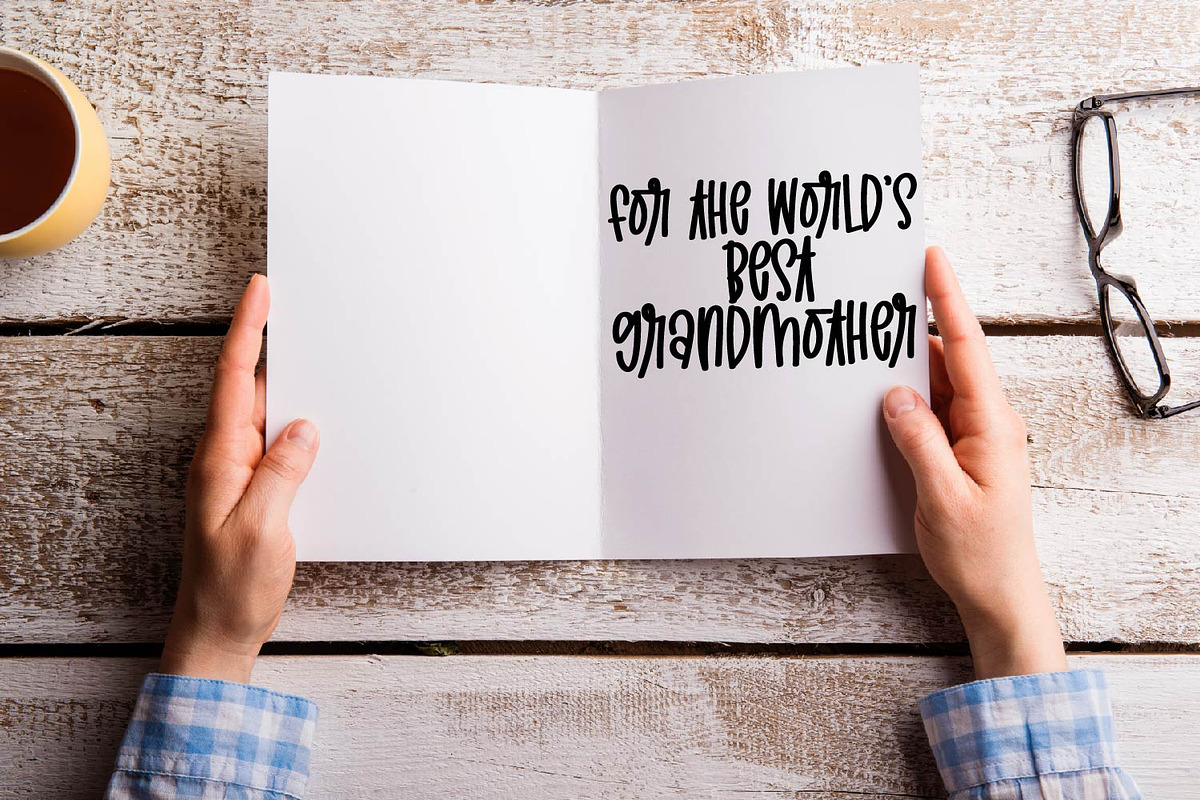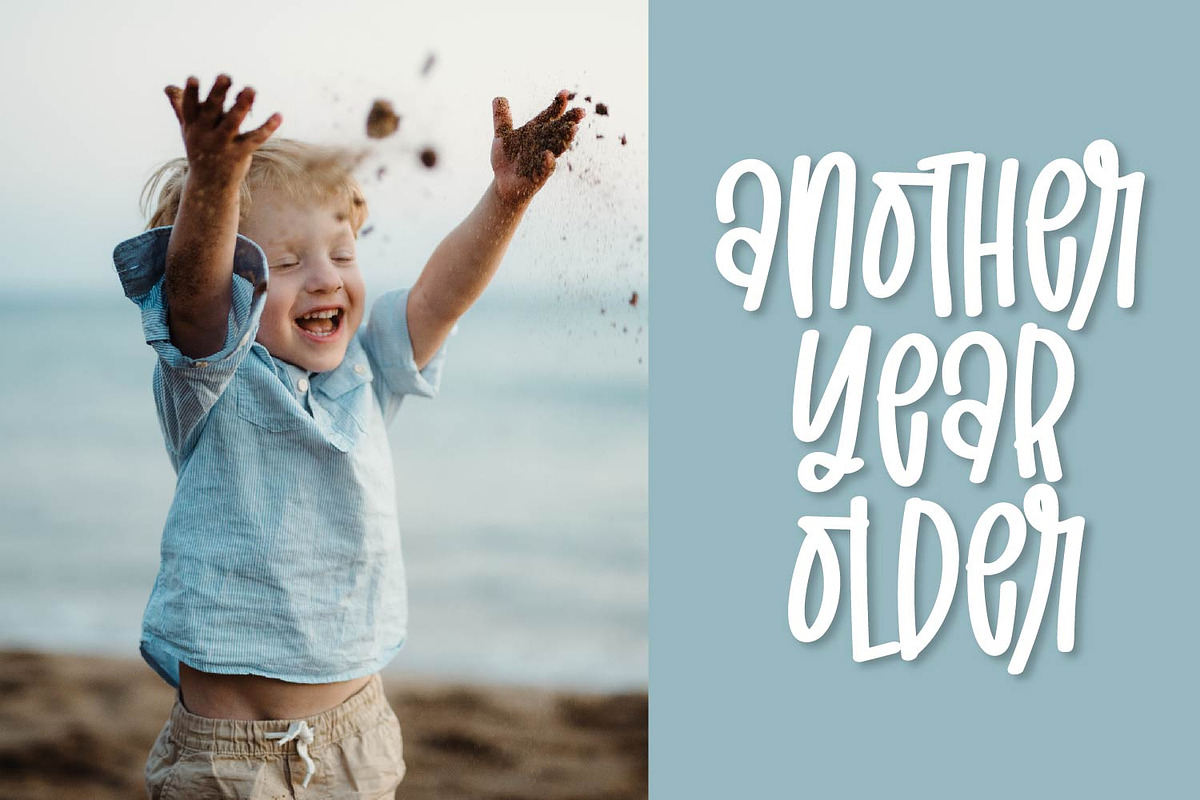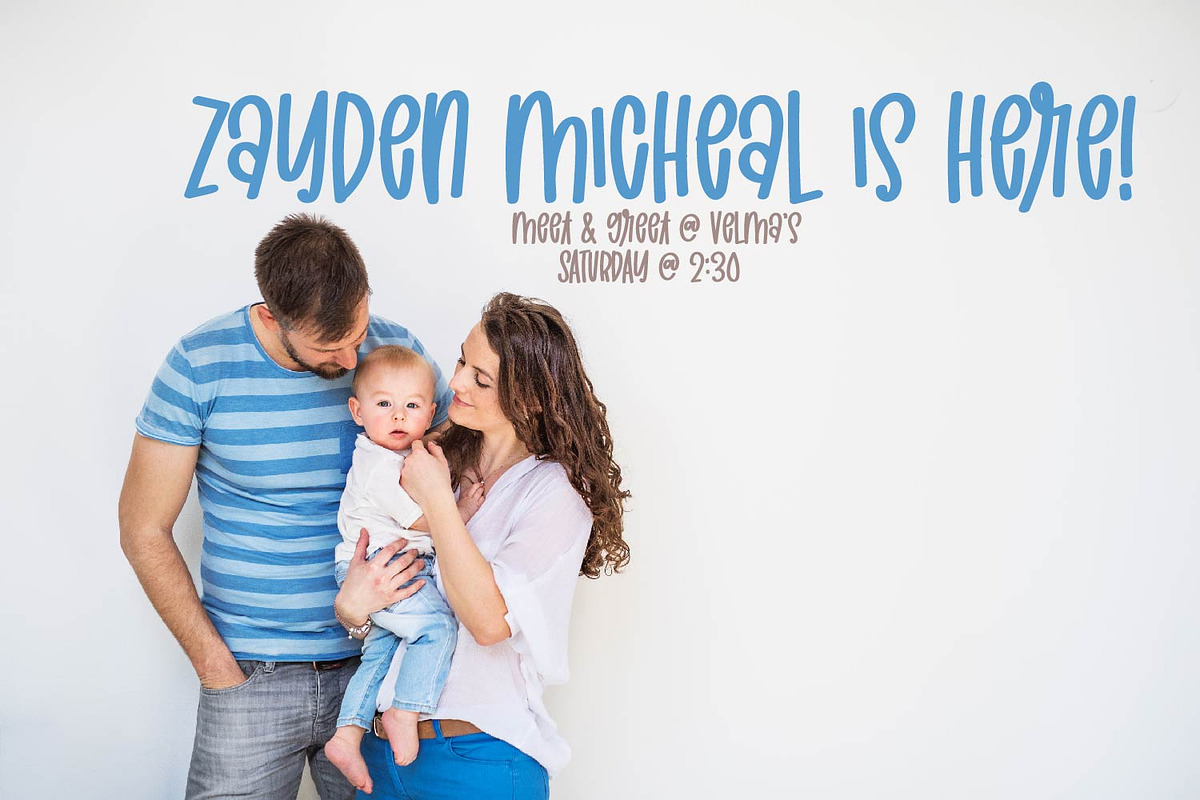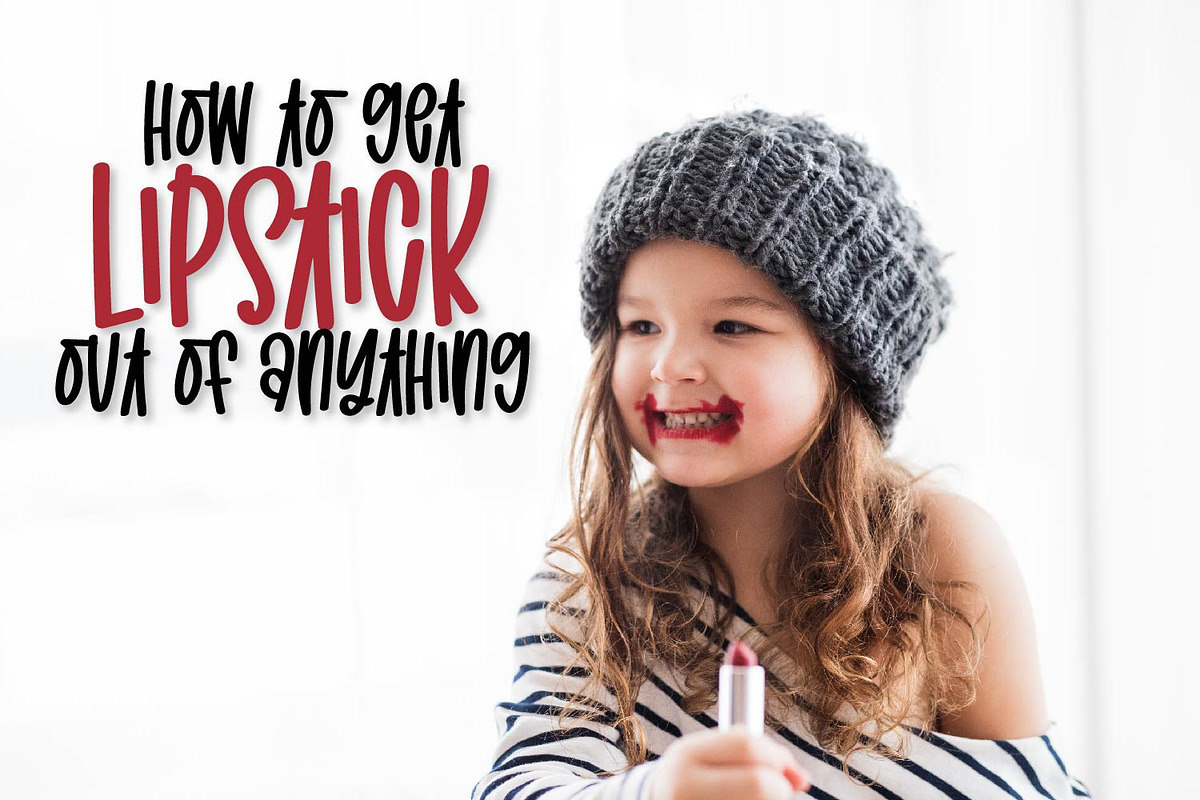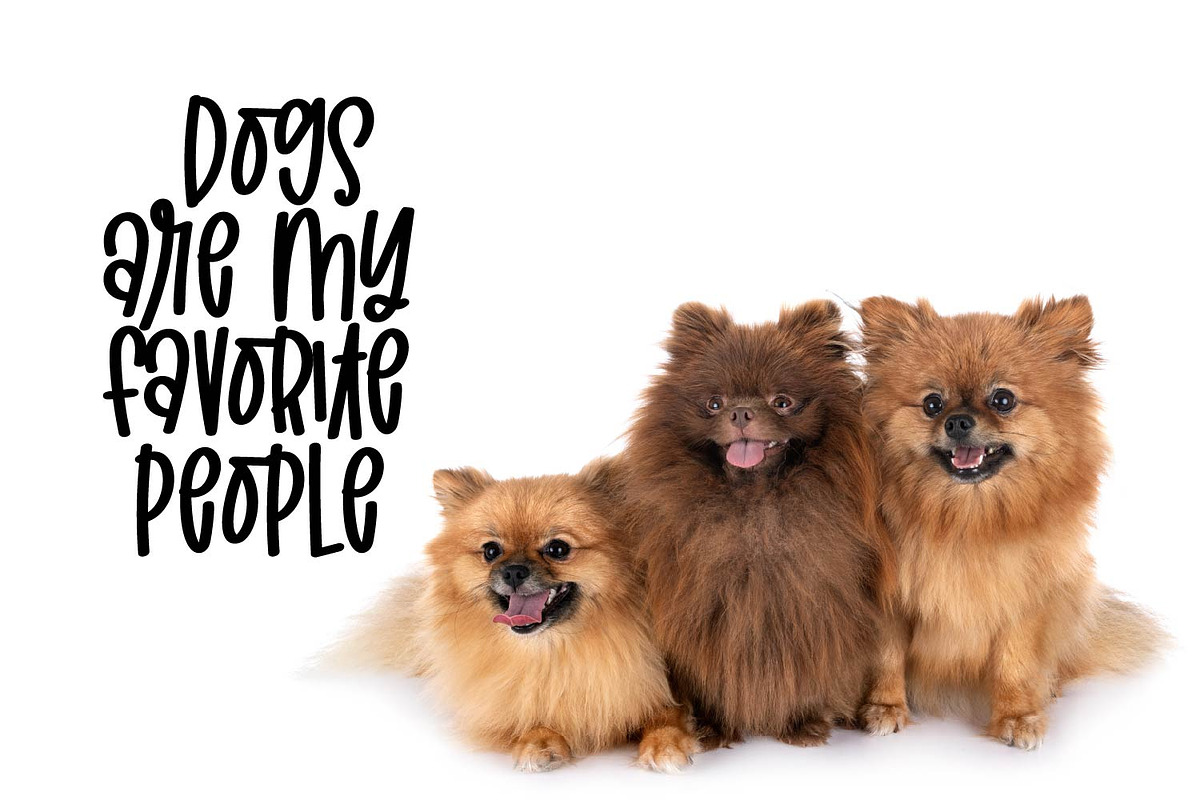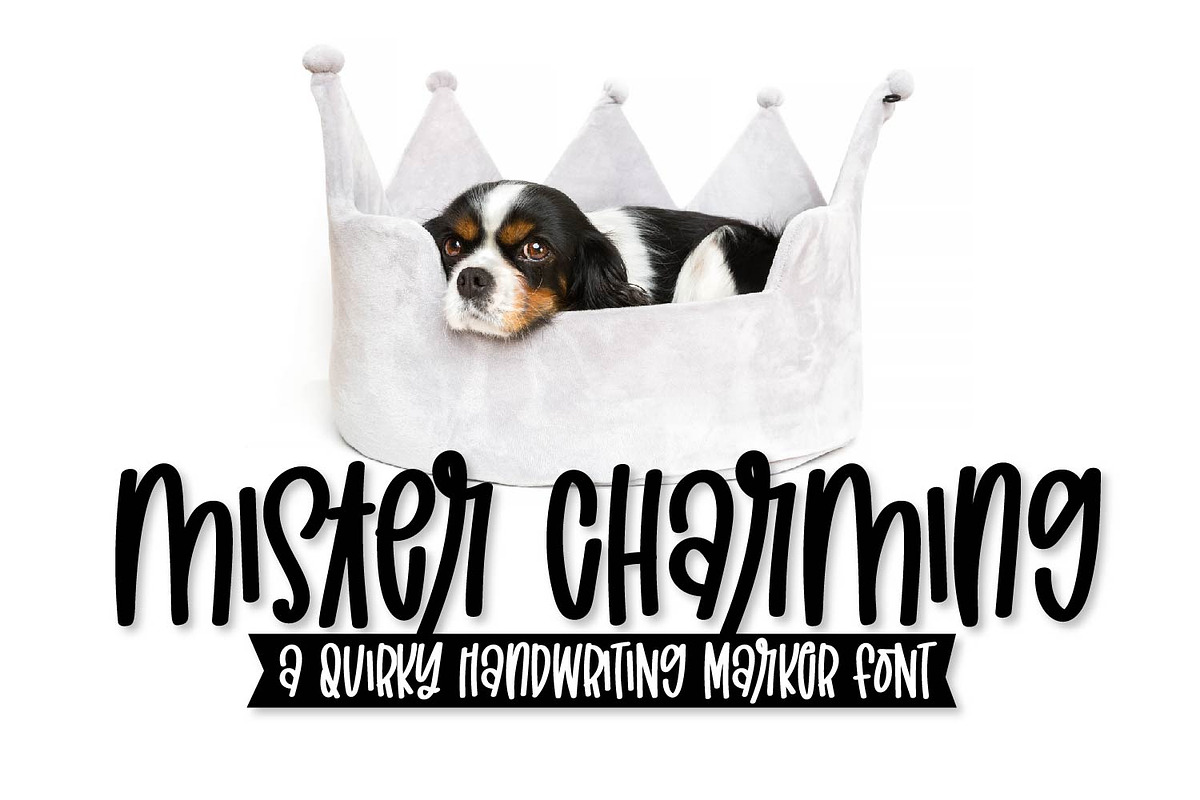
Mister Charming - A Quirky Font
Mister Charming A Quirky Font by CraftyLittleNodes is a font selected for branding, posters, packaging, typography.
Why Mister Charming - A Quirky Font is worth a look
Mister Charming - A Quirky Font by CraftyLittleNodes fits naturally into Branding, posters, packaging, typography.